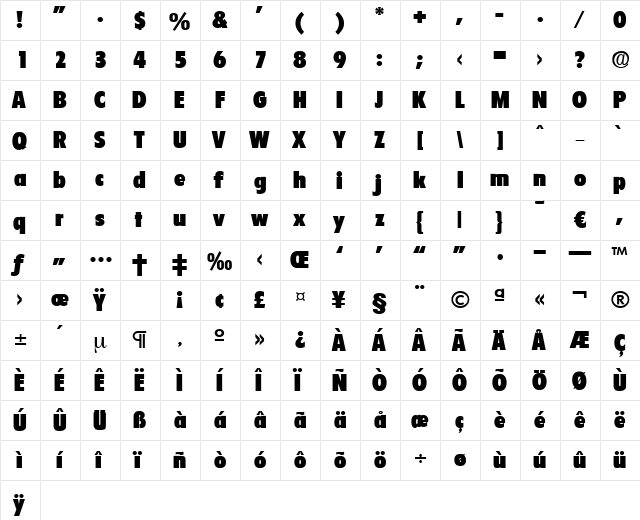
Florida-Black Regular
Design Context for Florida-Black Typeface
Florida-Black takes a measured approach to typography — its balanced proportions and neutral character make it a reliable workhorse for both digital and print work.